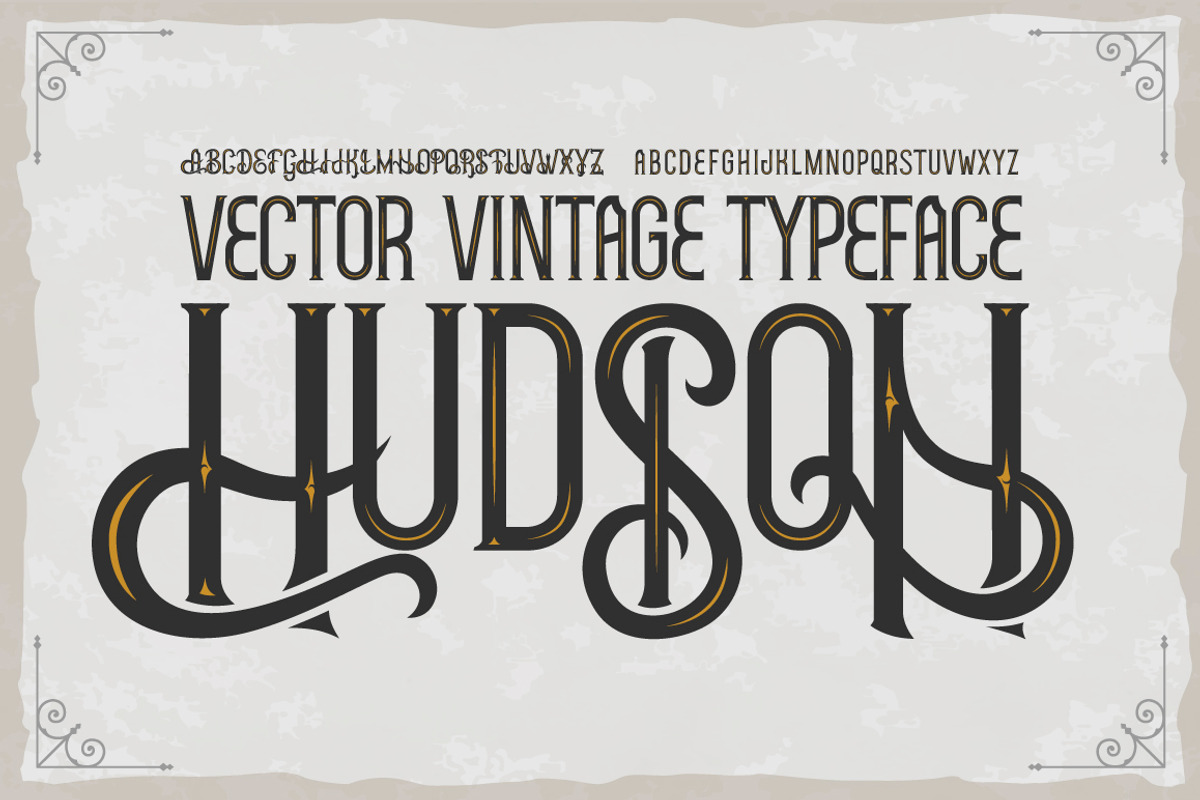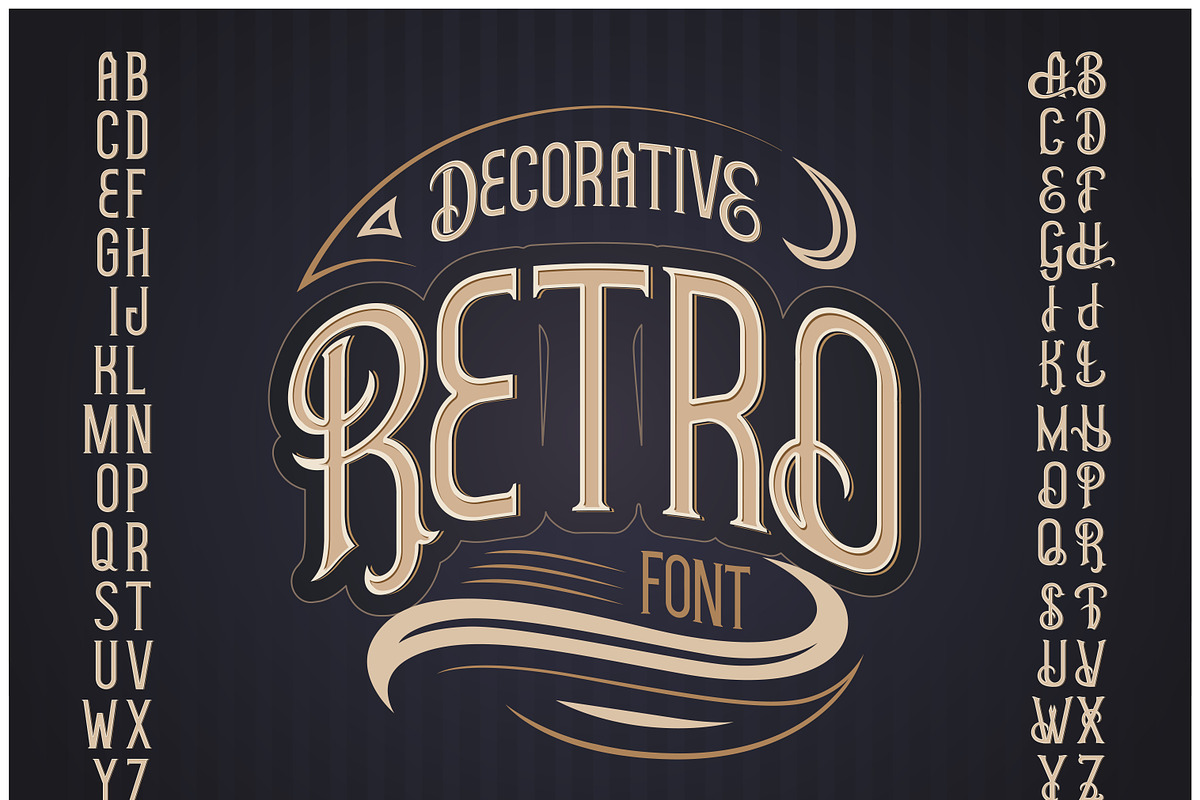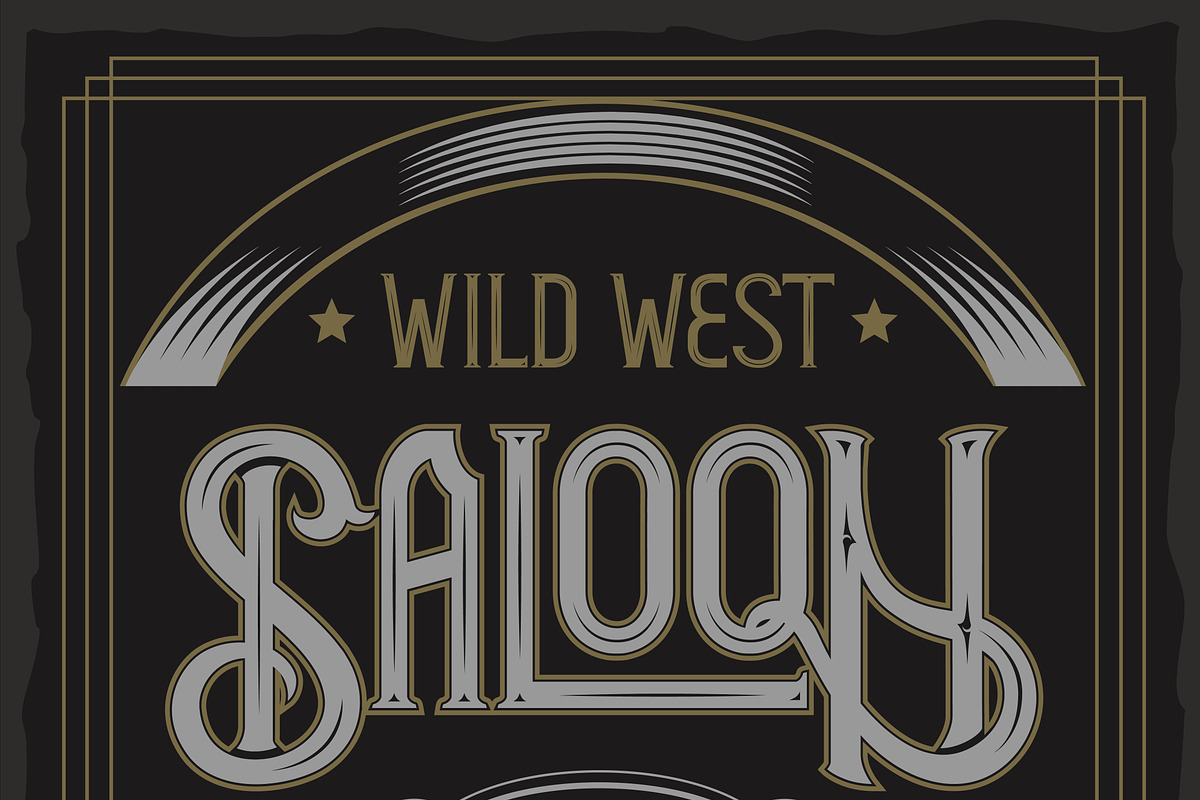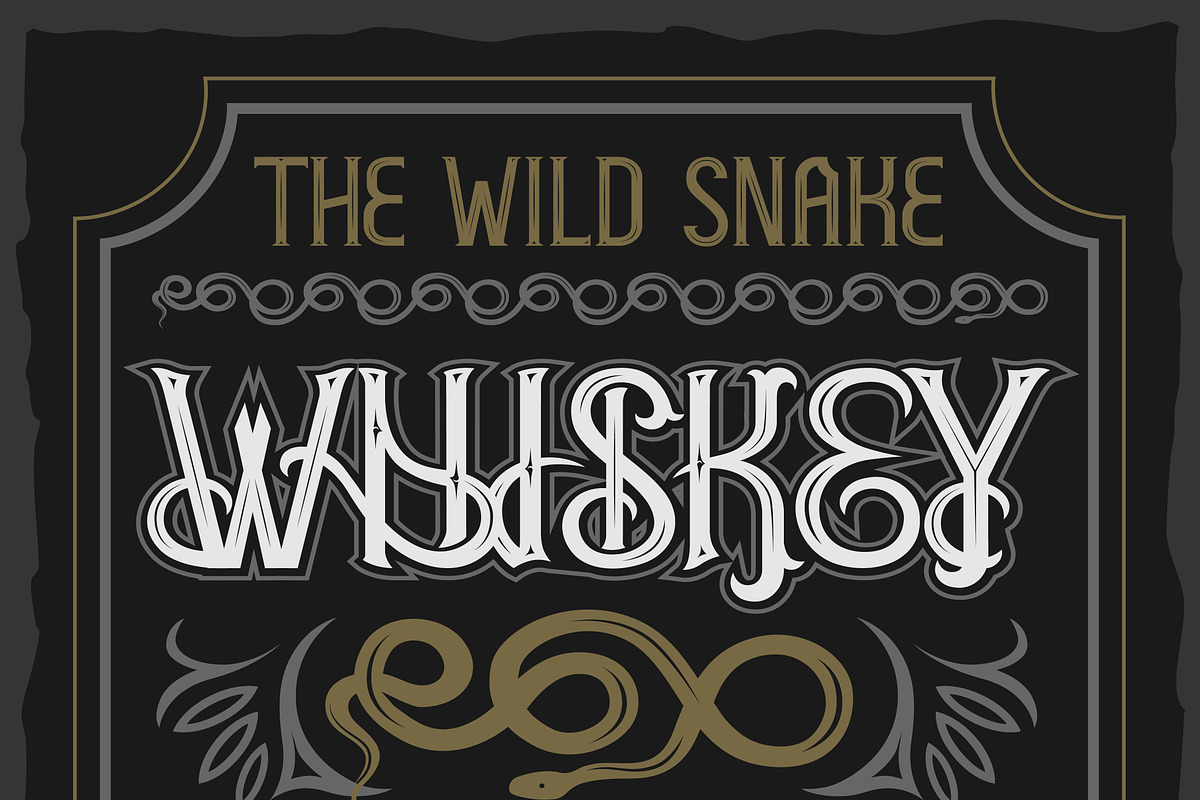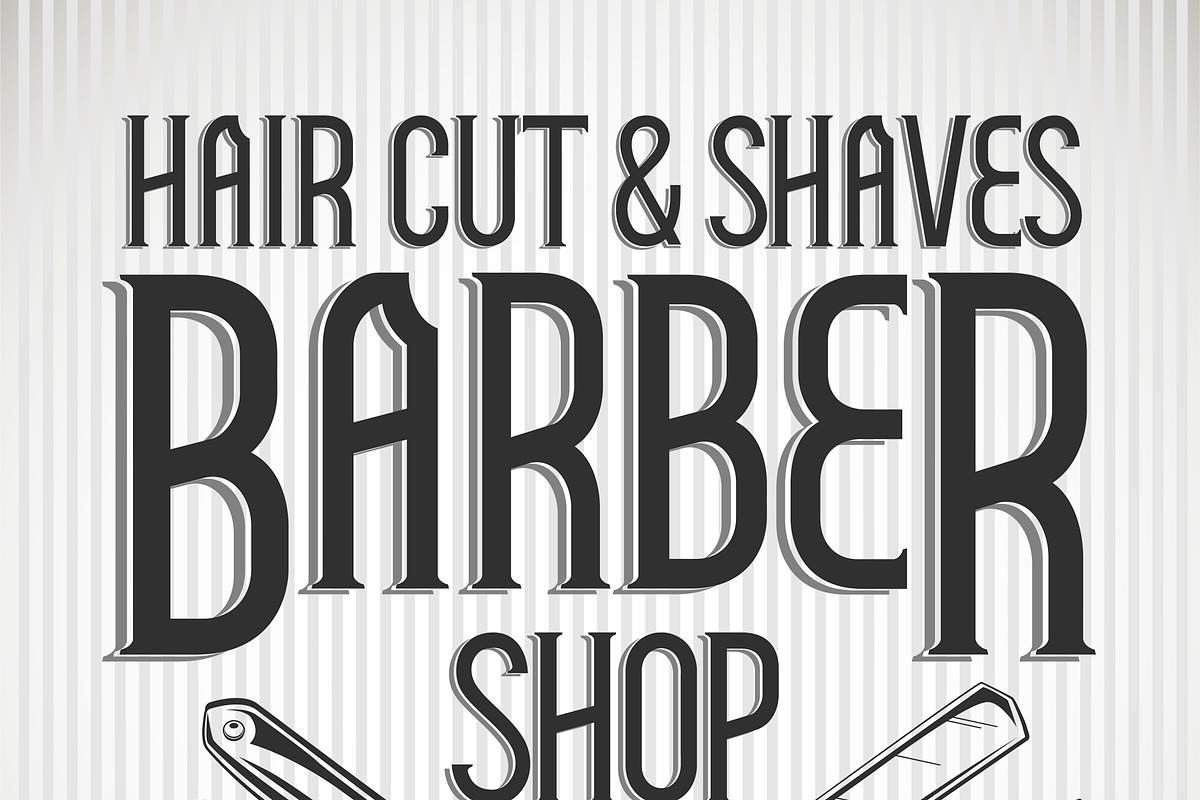
Hudson OTF vintage label font.
Why Hudson OTF vintage label font. is worth a look
Hudson OTF vintage label font. by Fractal fonts & graphics fits naturally into Branding, posters, packaging, typography.